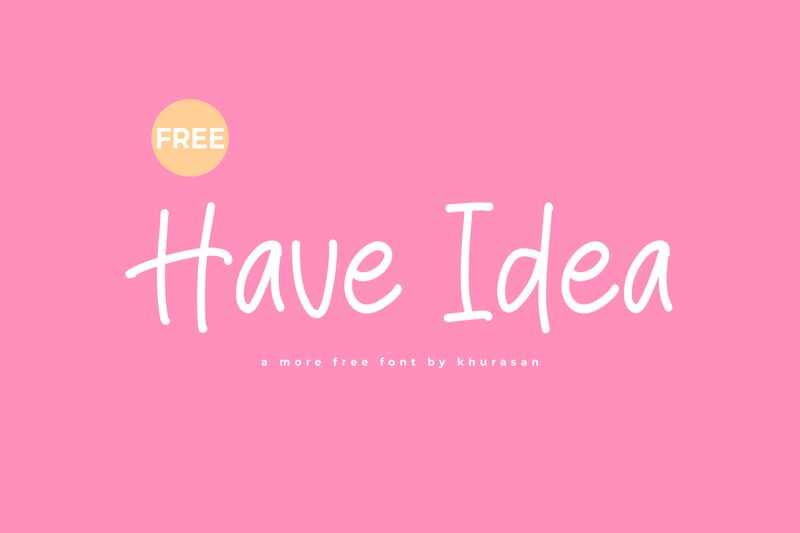
Have Idea
Have Idea is a font that exudes a personal touch, designed by Khurasan with a style that emulates the spontaneity and charm of handwritten text. Its flowing, organic curves and varying stroke thickness evoke the warmth of human touch, making it ideal for designs that require an intimate or informal feel. The slightly irregular letter shapes contribute to its authentic handwritten appearance, offering a friendly and approachable vibe.
This font's casual elegance makes it perfect for invitations, greeting cards, branding materials for boutique businesses, or any project seeking to convey creativity and personality. Have Idea's inviting character ensures that messages crafted in this font are not only read but felt, adding an individualistic flair to every word.